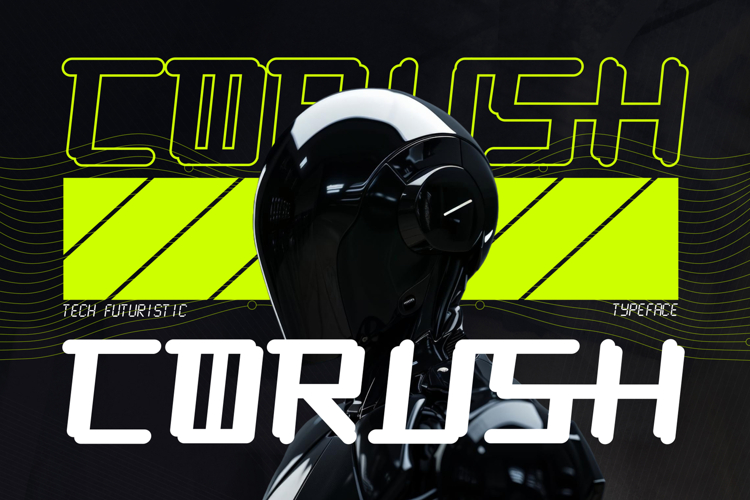
Corush - Modern Tech Futuristic Font
Corush is a modern tech futuristic font crafted for designers, brands, and digital creators who want to bring innovation and forward-thinking energy into their visual identity. Inspired by cyberpunk technology, robotics, and sci-fi aesthetics, Corush was built with geometric precision, sleek corners, and a clean modular structure that reflects modern design at its finest.
Every letter in Corush is created with strong attention to detail — the bold lines and subtle rounded edges balance strength with elegance. This perfect harmony makes Corush ideal for projects that aim to feel futuristic, professional, and cutting-edge. Whether you’re creating a logo for a tech startup, designing a gaming interface, or crafting bold typography for digital ads, Corush adds a modern, high-tech soul to your work.
The overall design is influenced by cybernetic engineering and motion systems, evoking the visual energy of digital screens and neon-lit cities. It’s more than just a font — it’s a statement of modern innovation and digital precision.
Corush includes all the essentials for professional design work — Uppercase Letters, Numbers, and Punctuation, plus Multilingual Support for international use. It also comes with Stylistic Alternates that allow you to experiment with alternate letterforms and unique futuristic variations. The alternates give you extra creative freedom to craft personalized, standout compositions.
Perfect For:
- Futuristic branding and technology logos
- Esports and gaming visuals
- Sci-fi movie titles and posters
- Cyberpunk interfaces and app UI design
- Modern packaging and digital advertising
- AI, robotics, and innovation-driven projects
Why Designers Love Corush
Corush embodies the future of design — clean, intelligent, and forward-looking. It’s crafted to deliver impact in large titles but also remains precise and readable in smaller sizes. The geometric structure gives a sense of modern engineering, while the smooth terminals keep it elegant and versatile.
Designers love Corush for its balance between power and simplicity. It’s futuristic without being overly complex, and modern without losing warmth. Each character feels alive, inspired by the way technology flows — efficient, fast, and sleek. From tech branding to esports identities, Corush instantly transforms your text into something memorable and ahead of its time.
The result is a typeface that doesn’t just decorate your design — it defines its entire atmosphere. Corush invites you to explore a creative space where digital technology and visual artistry meet perfectly.